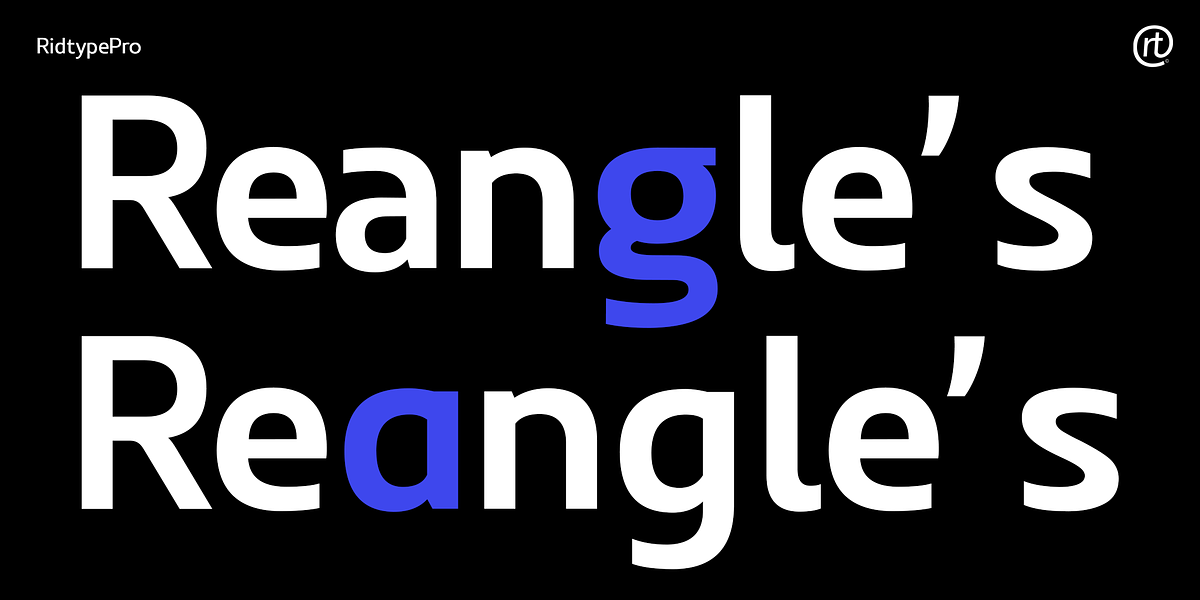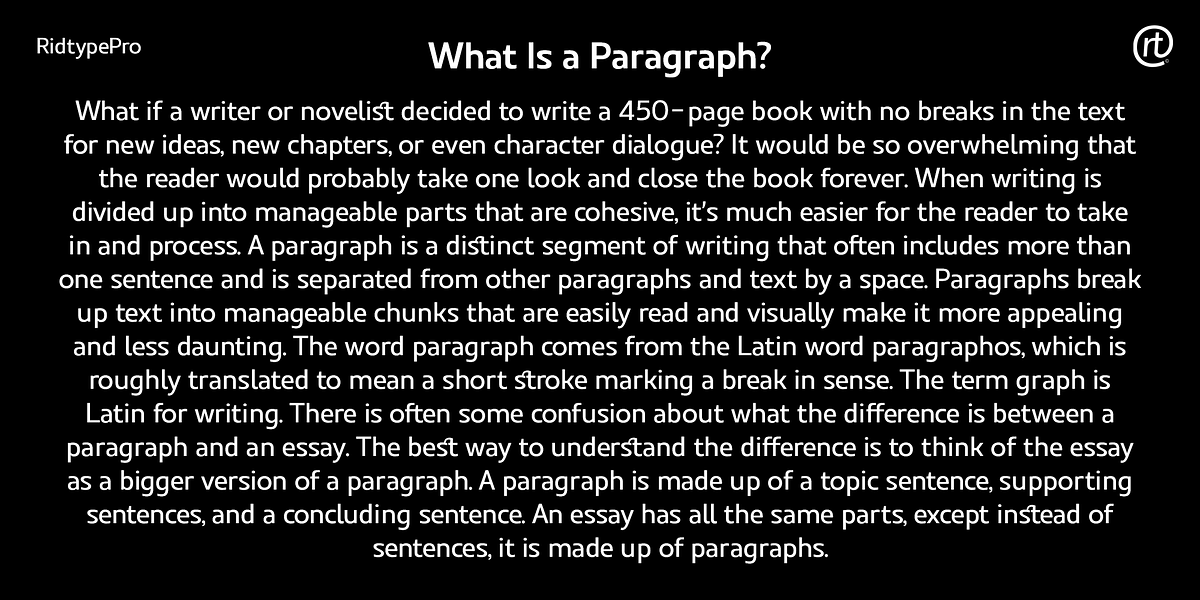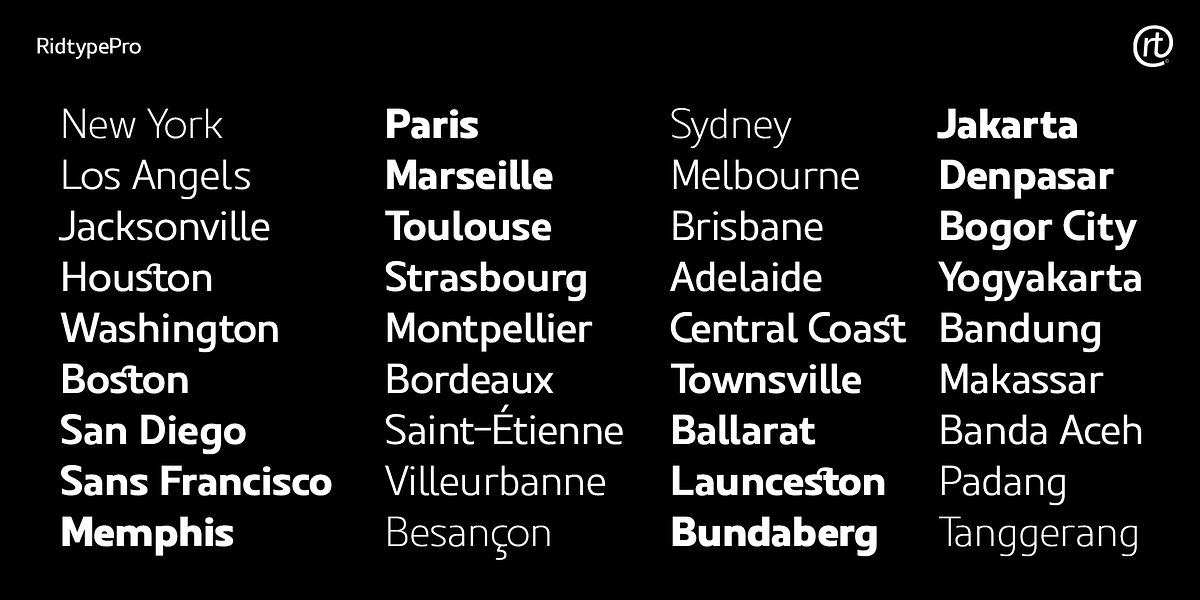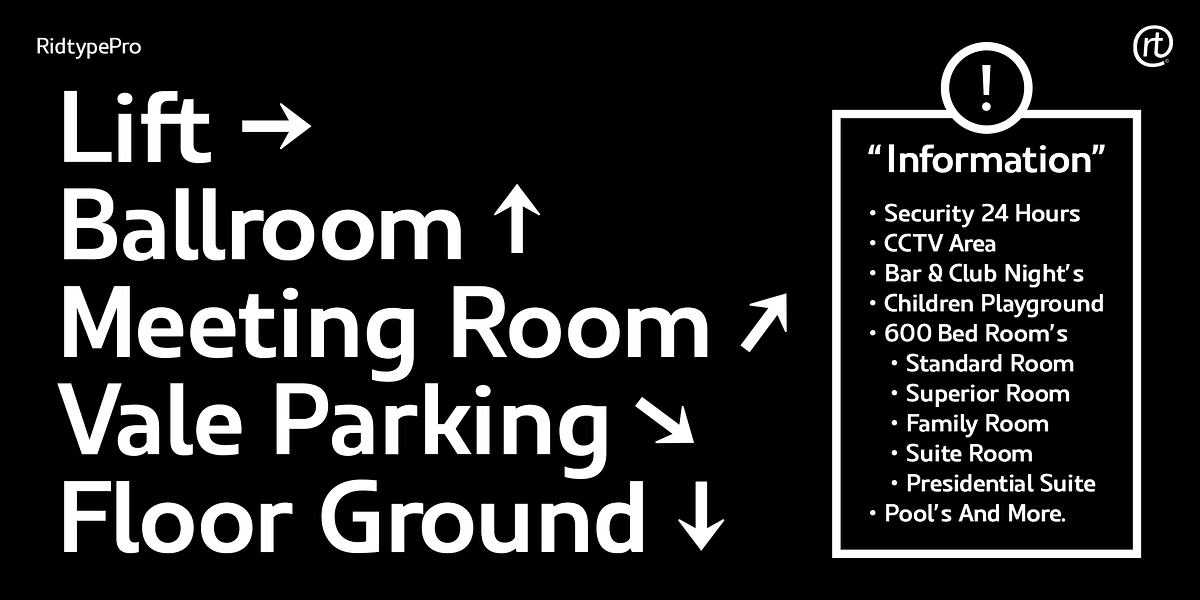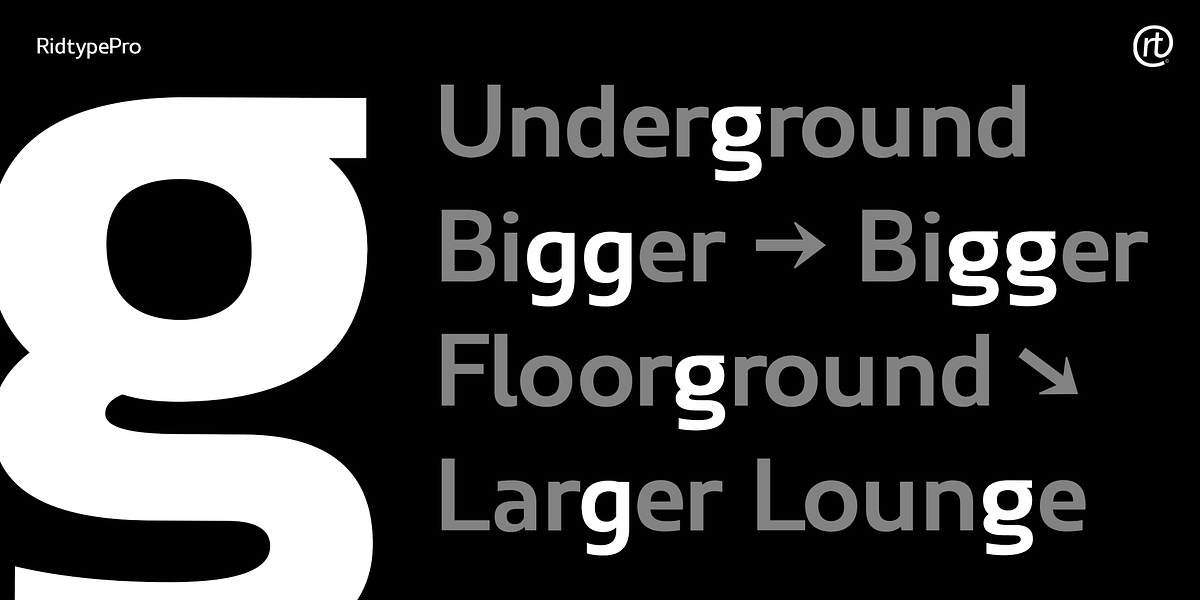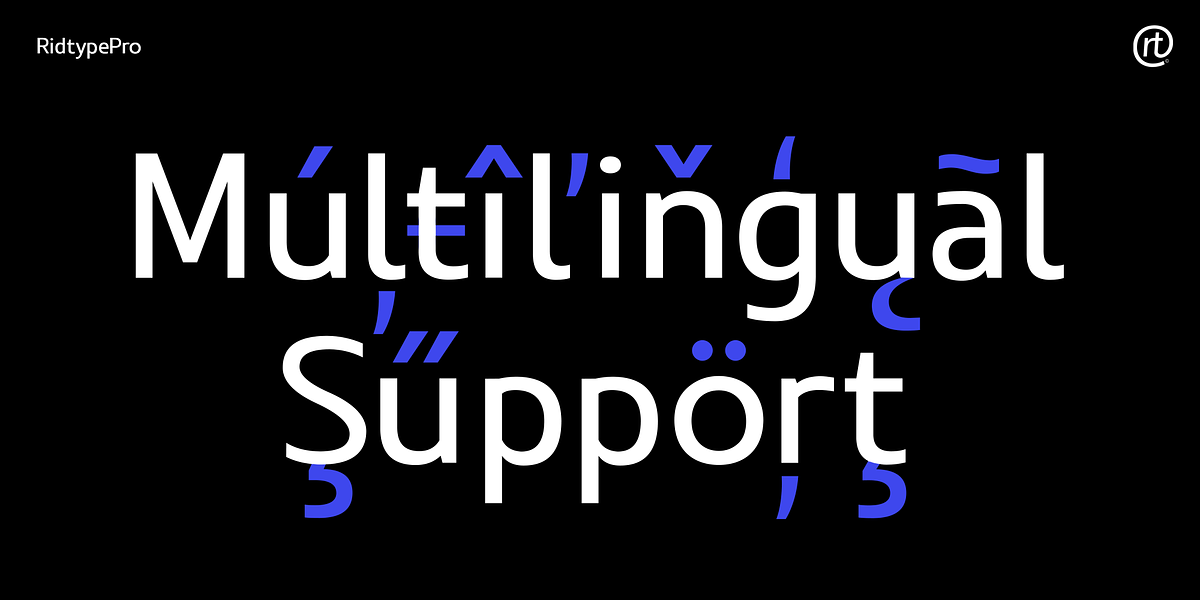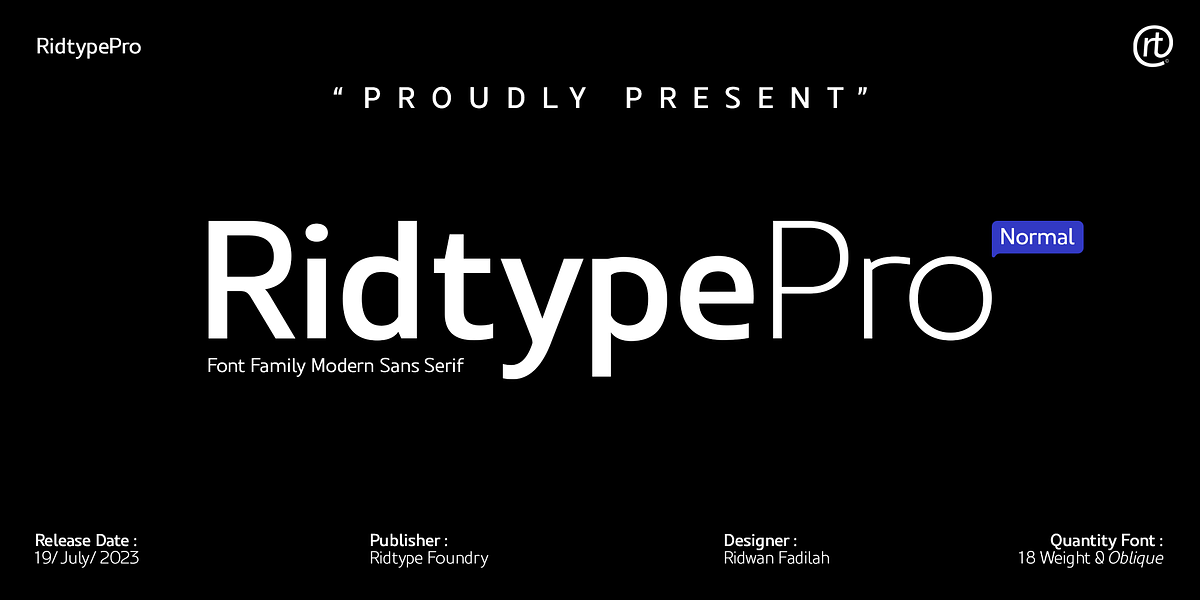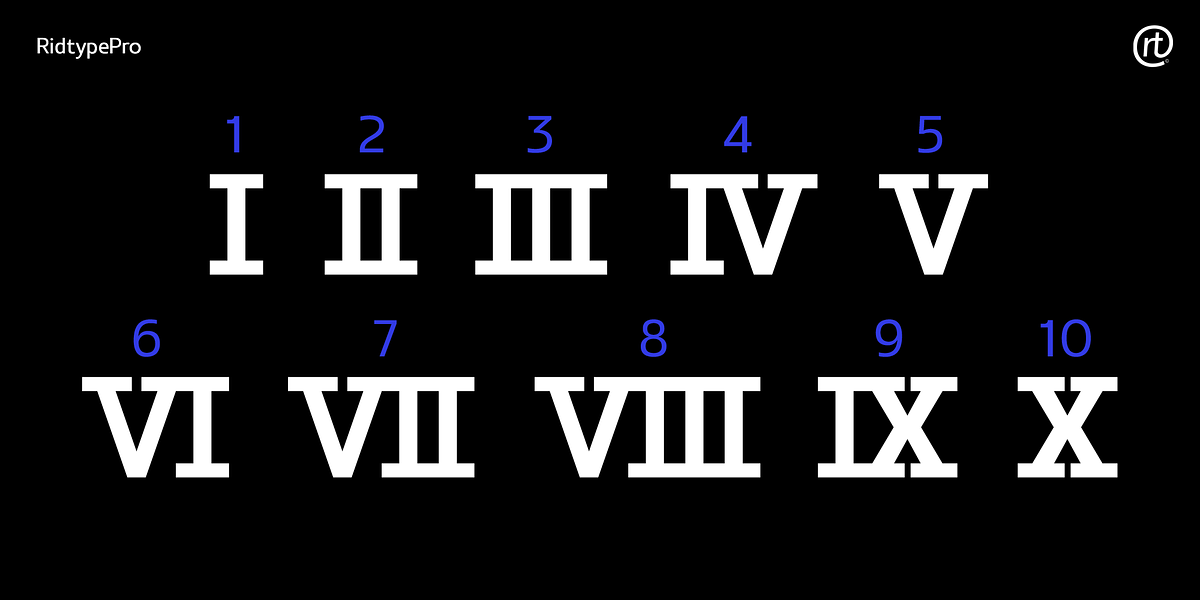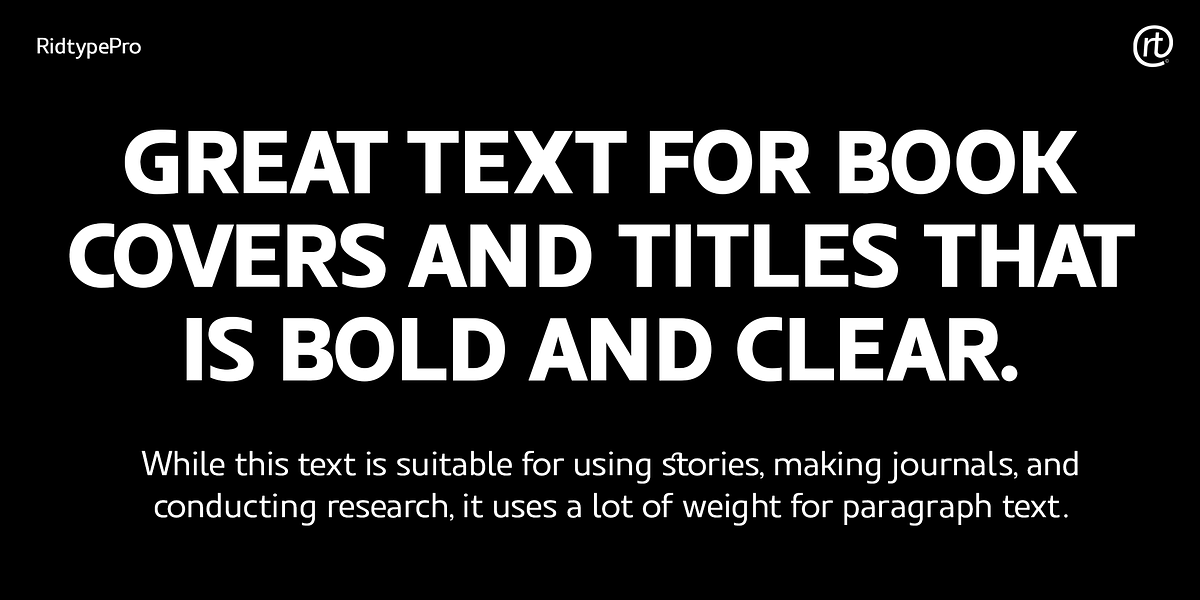
Ridtype Pro
Ridtype Pro is a geometric sans serif font designed for versatility. Its modern aesthetic and clean lines make it suitable for both branding and body text applications.